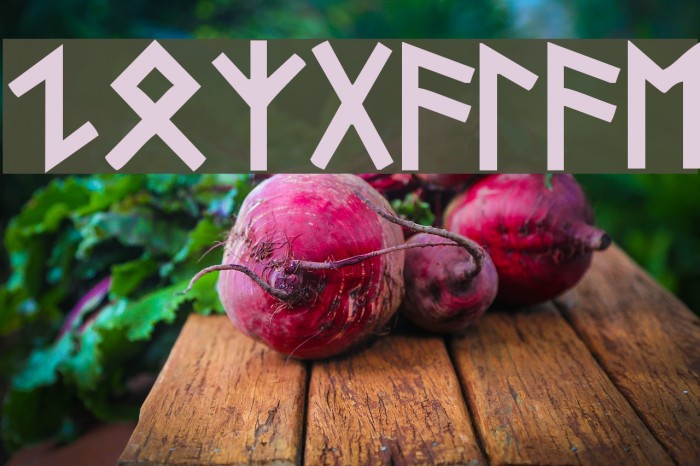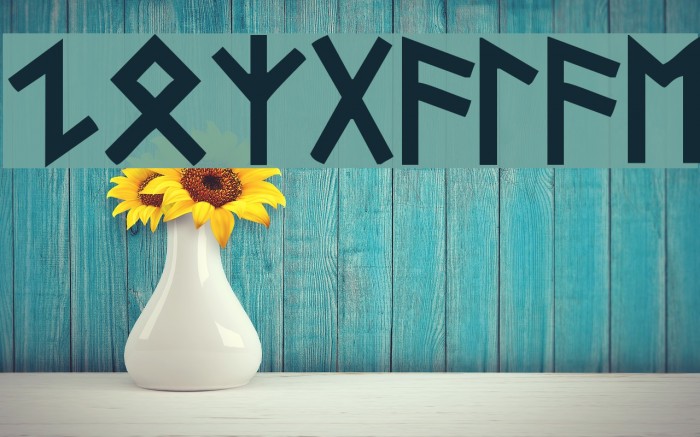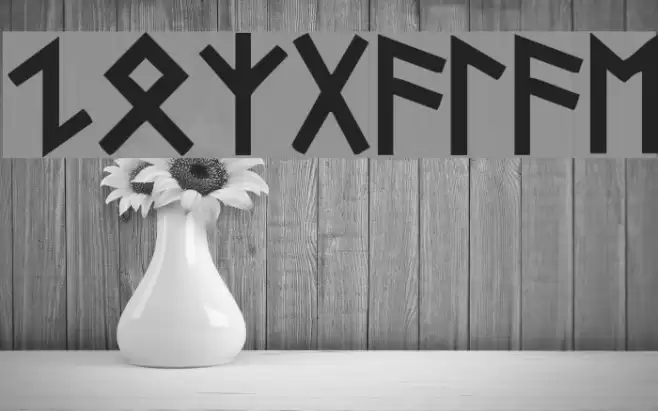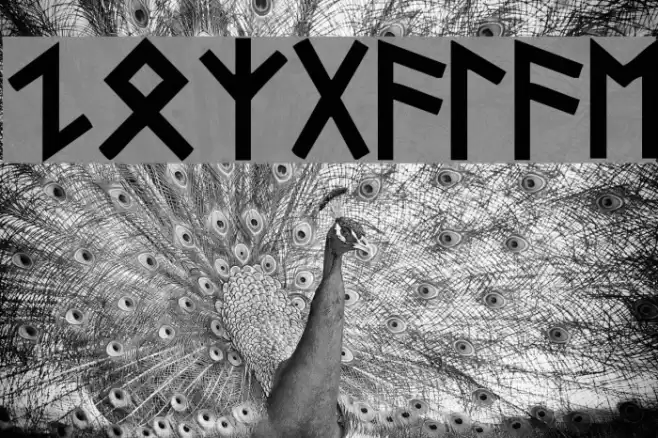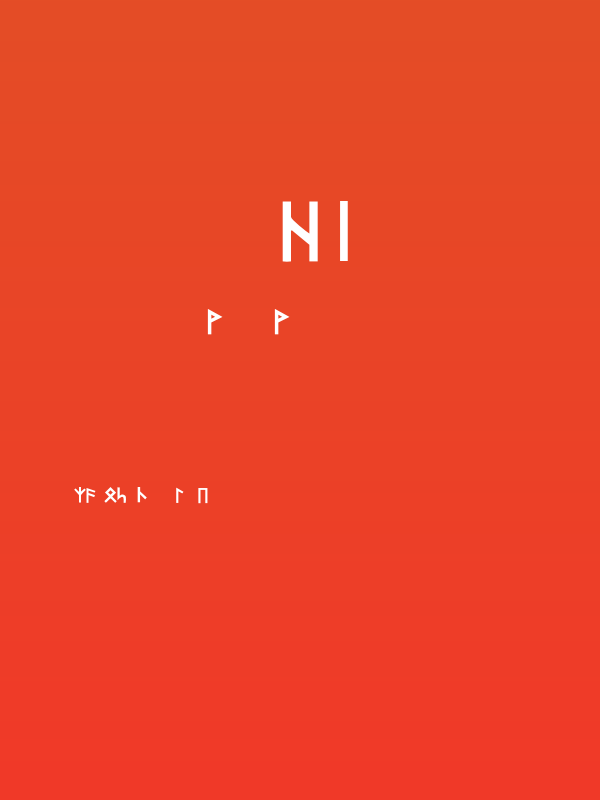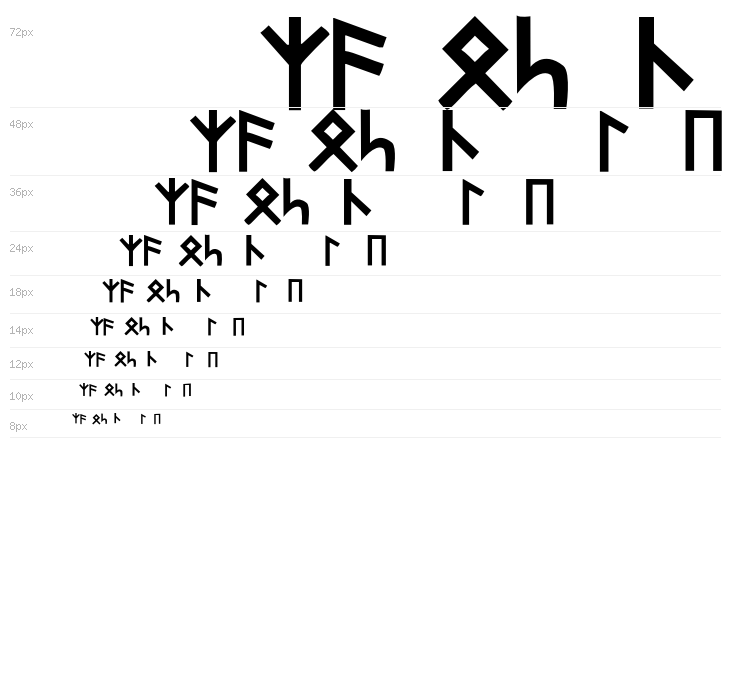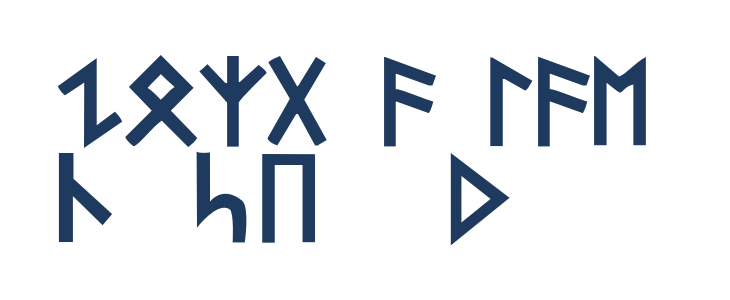
Turkish Font
Turkish Description
This is not a valid font. The image contains symbols that resemble ancient scripts or runes, which do not correspond to a standard alphabet or typeface used in modern typography. These characters appear to be decorative or symbolic rather than functional for typical text representation.
| Use Case | Artistic projects, historical recreations, fictional languages. |
| Proposed Projects | This set of symbols could be used for artistic projects, historical recreations, or fictional languages in games and films. |